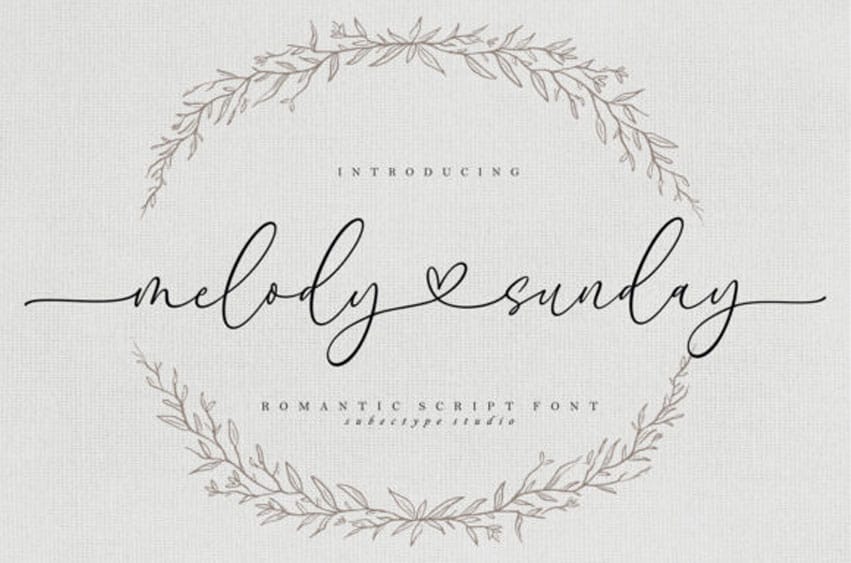
Melody Sunday Font is a chic and lovely calligraphy font, described by an elegant vibe. Fall in love with its incredibly distinct and timeless style and use it to create spectacular designs!